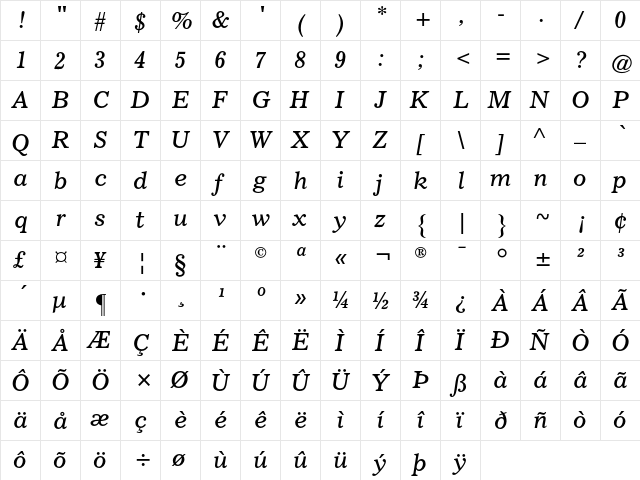
News AT Number Two Italic
Design Context for News AT Number Two Typeface
News AT Number Two offers clean, dependable letterforms without strong stylistic allegiance, making it a practical choice for designers who need flexibility. Its italic angle brings a sense of urgency and motion to the letterforms.
Pro Tip: Use News AT Number Two for emphasis, pull quotes, and subheadings where its slanted energy can add rhythm to the layout.